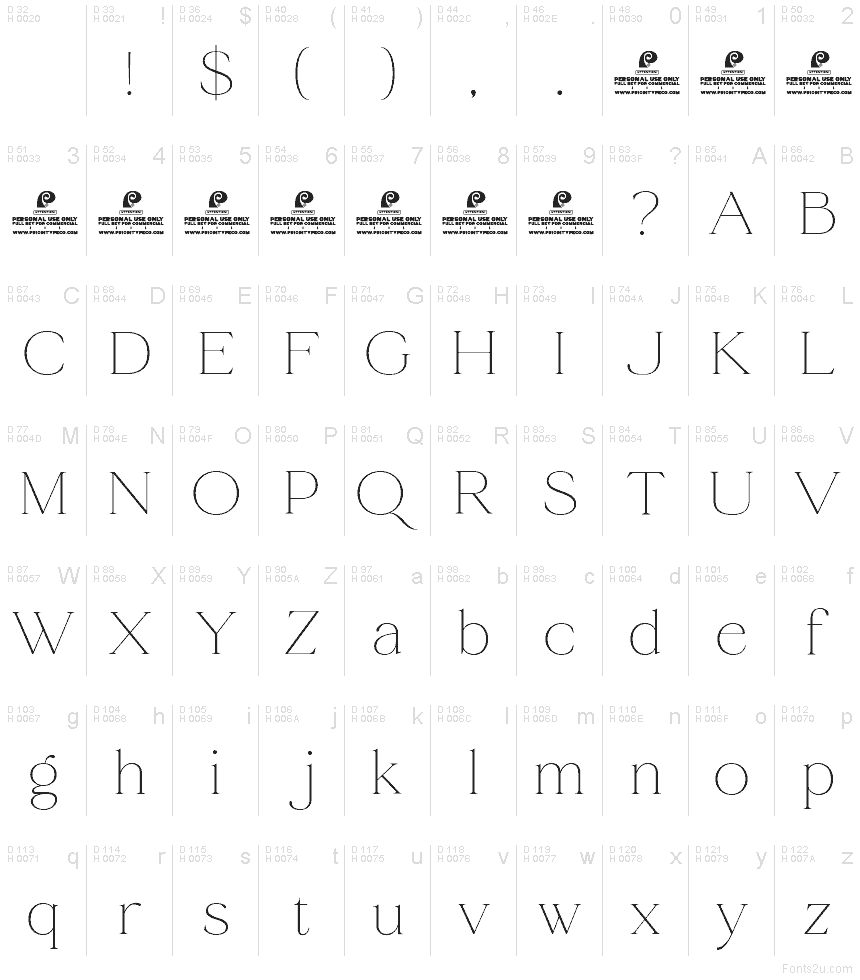
Radiant Charisma DEMO ExtLt
Radiant Charisma ExtLt font by Prioritype Co is an elegant and refined serif design featuring thin lines that demonstrate a modern appeal. With its sophisticated ambiance, the font stands out with every character, giving your digital and printed projects a polished look and leaving you with professional designs.
A free serif font for books, notes, quotations, blogs, newspapers or magazine headlines. Use Radiant Charisma ExtLt for letterhead applications where individuality is always expected or create eye-catching posters and remarkable logotypes that no viewer can miss.